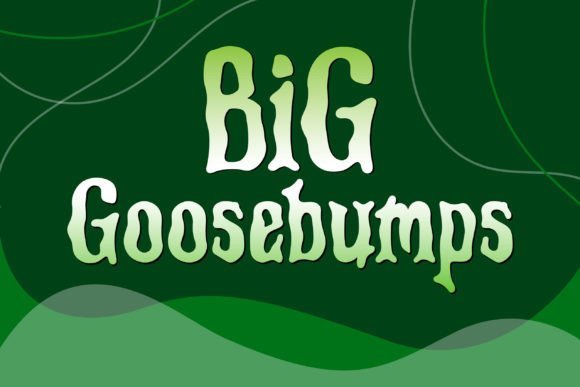
Get Ready to Unleash Your Creativity with Big Goosebumps Font
Have you ever stared at a blank page, waiting for inspiration to strike? The cursor blinks, and you’re paralyzed by the endless possibilities. But then, it hits you – a burst of creativity that sets your imagination ablaze. For designers, this moment is the spark that ignites a new project, and for many, it’s the Big Goosebumps Font that fuels their creative endeavors.
Big Goosebumps Font is a stylish Gothic decorative font that adds a modern twist to your designs. With 96 distinctive glyphs and 95 characters, it’s the perfect tool for crafting captivating Halloween-themed movie titles, eye-catching T-shirt designs, and attention-grabbing posters. This versatile font empowers designers to push the boundaries of their creativity, making it a valuable addition to any design arsenal.
Big Goosebumps Font Key Features
- Font Family: Big Goosebumps
- Font Type: Display Font
- Unique Characteristics: Distressed, Grungy, Hand-Drawn, Vintage-inspired look, Perfect for Horror, Mystery, and Thriller book covers, posters, and other designs
Big Goosebumps Font Review
Overall, I think the Big Goosebumps Font is a fun, quirky choice for designers who want to add some personality to their projects. ✨ One of the things I like about this font is its unique, handwritten feel, which makes it perfect for creating a sense of whimsy and playfulness.
- ✨ Uniqueness: The Big Goosebumps Font is not your average font, and its one-of-a-kind design makes it stand out from the crowd.
- ✨ Versatility: This font can be used for a variety of projects, from children’s books to advertisements and even personal blogs.
- ✨ Customization options: The font comes with a range of customization options, including different font sizes, colors, and styles.
However, there are a few limitations:
- ⚠️ Limited legibility: The handwritten feel of the font can make it difficult to read, especially at small font sizes.
- ⚠️ Limited compatibility: The font may not be compatible with all software or operating systems, which can be frustrating for designers.
- ⚠️ Limited character set: The font may not have a complete character set, which can limit its use in certain projects.
Overall, I think the Big Goosebumps Font is a great choice for designers who want to add some personality to their projects, but it’s not without its limitations.
Tips for Getting the Most Out of Big Goosebumps Font
For a spooky effect, pair Big Goosebumps Font with dark backgrounds and bold colors.
Experiment with different font sizes and styles to create a dramatic look.
Use Big Goosebumps Font for titles, headings, and other attention-grabbing text elements.
Big Goosebumps Font is perfect for:
Horror-themed projects, such as movie posters or book covers.
Spooky social media posts or advertisements.
Creepy invitations or event branding.
Alternatives to Big Goosebumps FontGreat Vibes
Great Vibes is a modern, handwritten font that conveys a sense of relaxation and calmness. It’s ideal for use in titles, headings, and quotes where you want to create a laid-back atmosphere. Great Vibes is similar to Big Goosebumps in its informal, cursive style, but it has a more refined and polished look.
Pacifico is a beautiful, elegant script font that’s perfect for use in titles, headings, and body text where you want to create a sense of sophistication and luxury. It’s more refined and polished than Big Goosebumps, but still has a touch of playfulness and whimsy. Pacifico is ideal for use in high-end branding, packaging, and advertising.
Carolyna Pro is a modern, elegant script font that’s perfect for use in titles, headings, and body text where you want to create a sense of sophistication and luxury. It’s similar to Big Goosebumps in its flowing, cursive style, but has a more refined and polished look. Carolyna Pro is ideal for use in high-end branding, packaging, and advertising.
Coming Soon is a fun, playful font that’s perfect for use in titles, headings, and quotes where you want to create a sense of excitement and anticipation. It’s more energetic and dynamic than Big Goosebumps, with a bold and eye-catching style. Coming Soon is ideal for use in promotional materials, social media, and event branding.